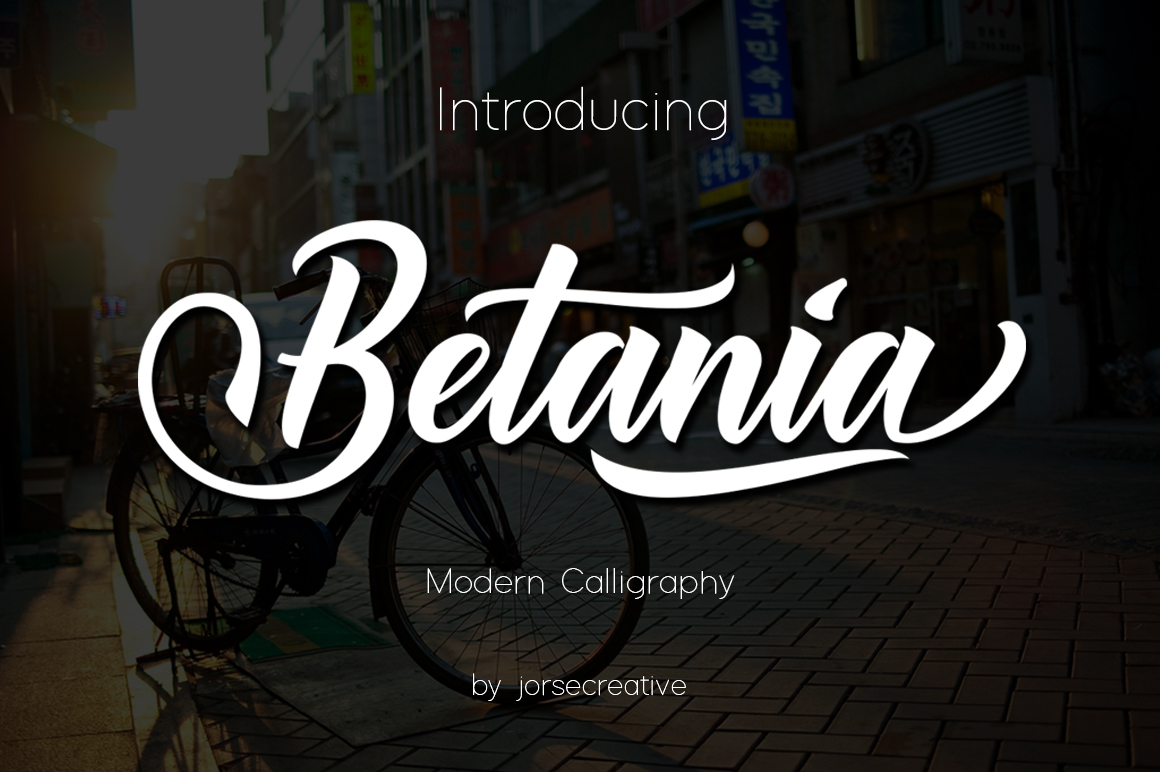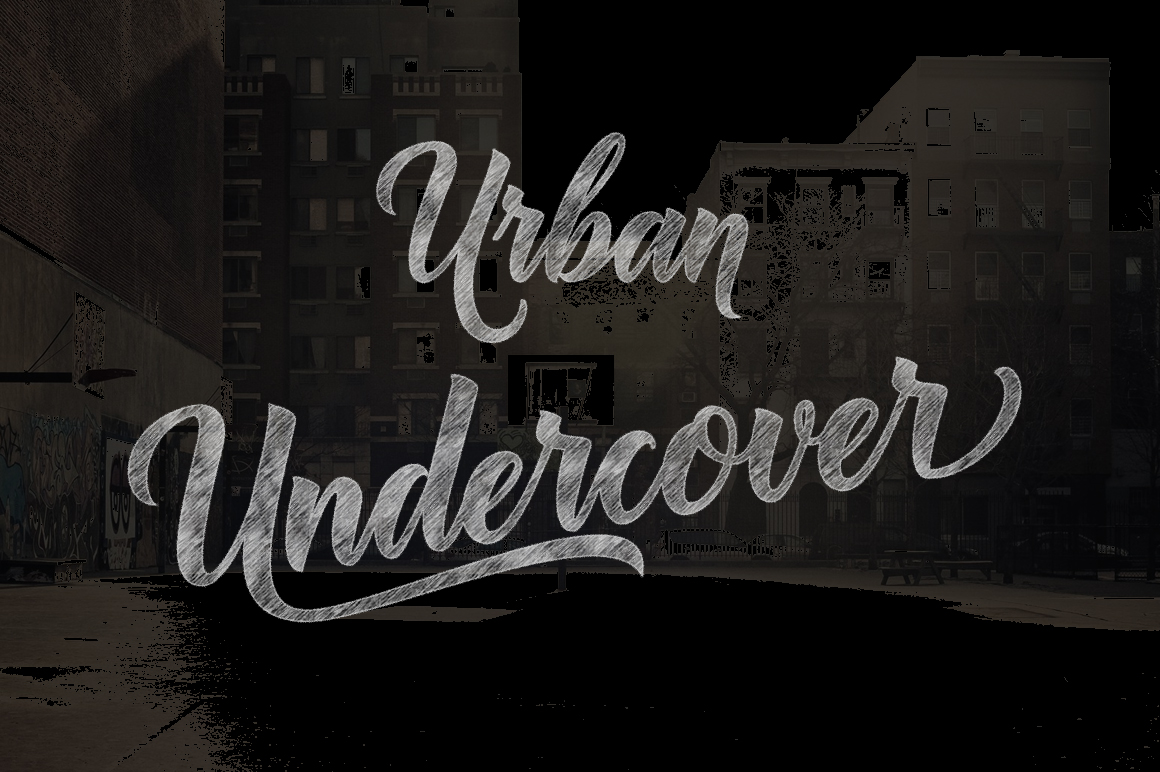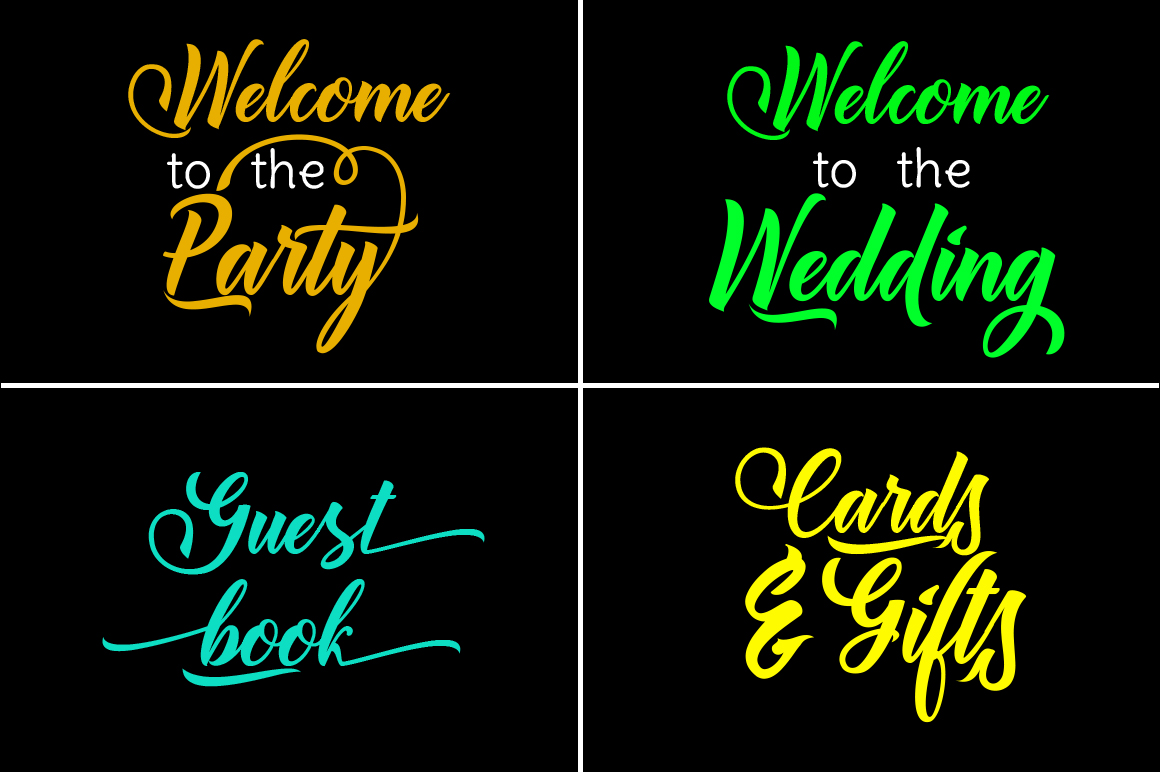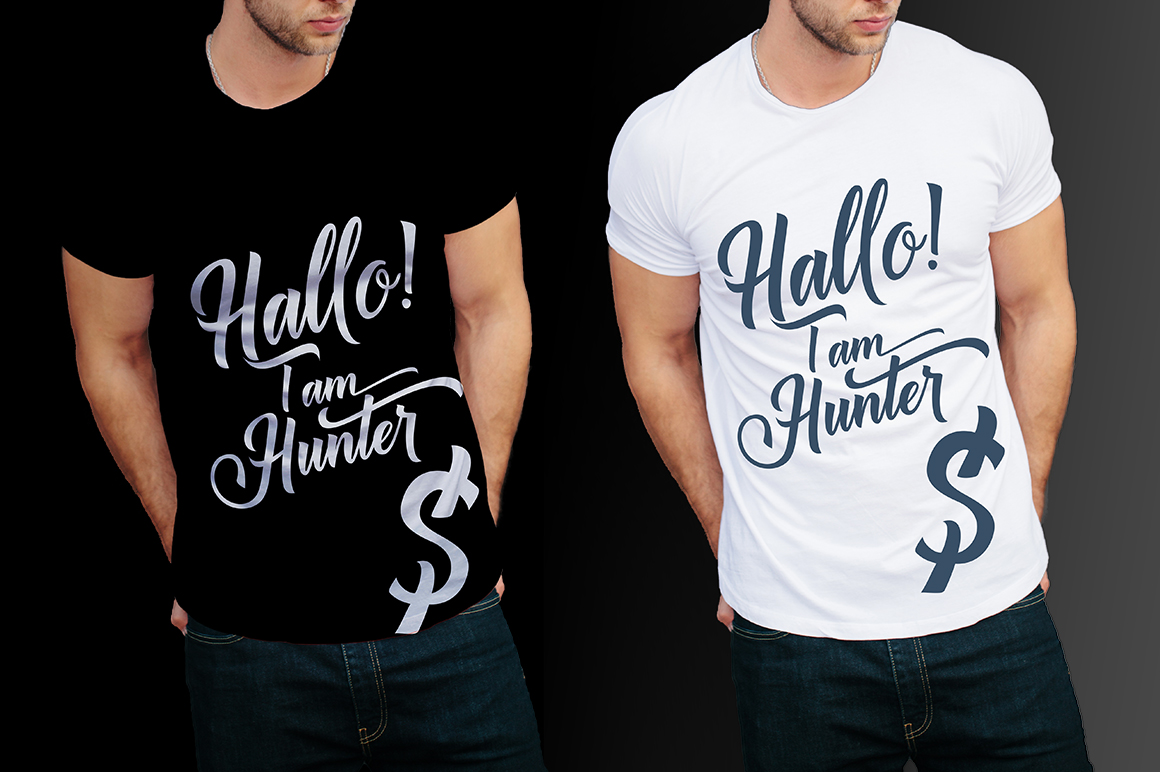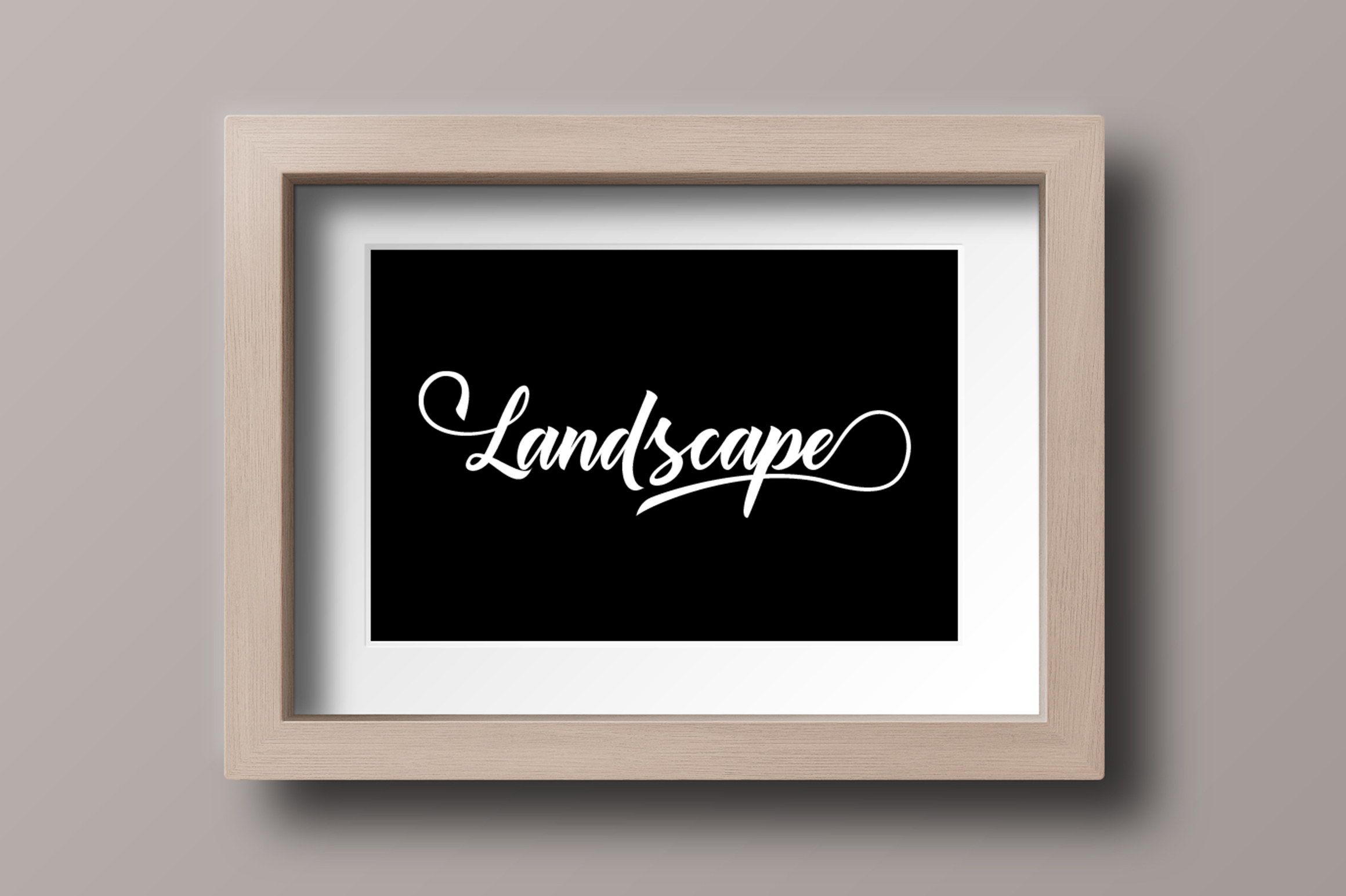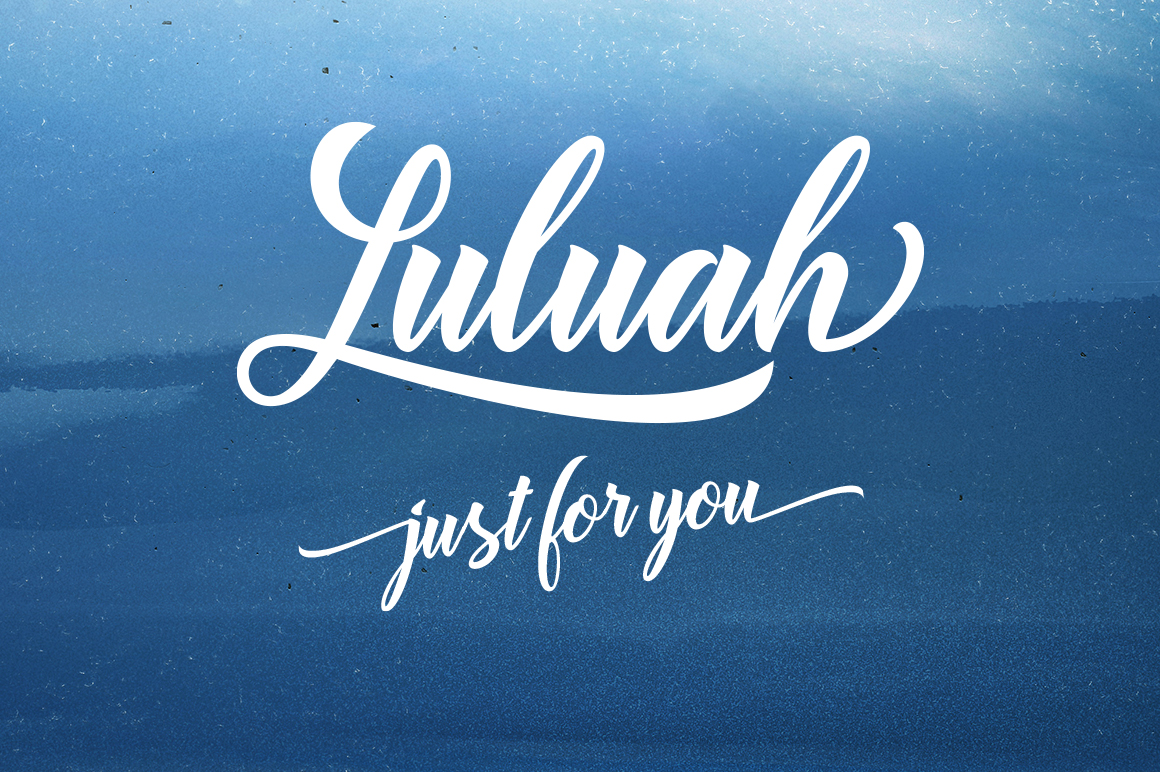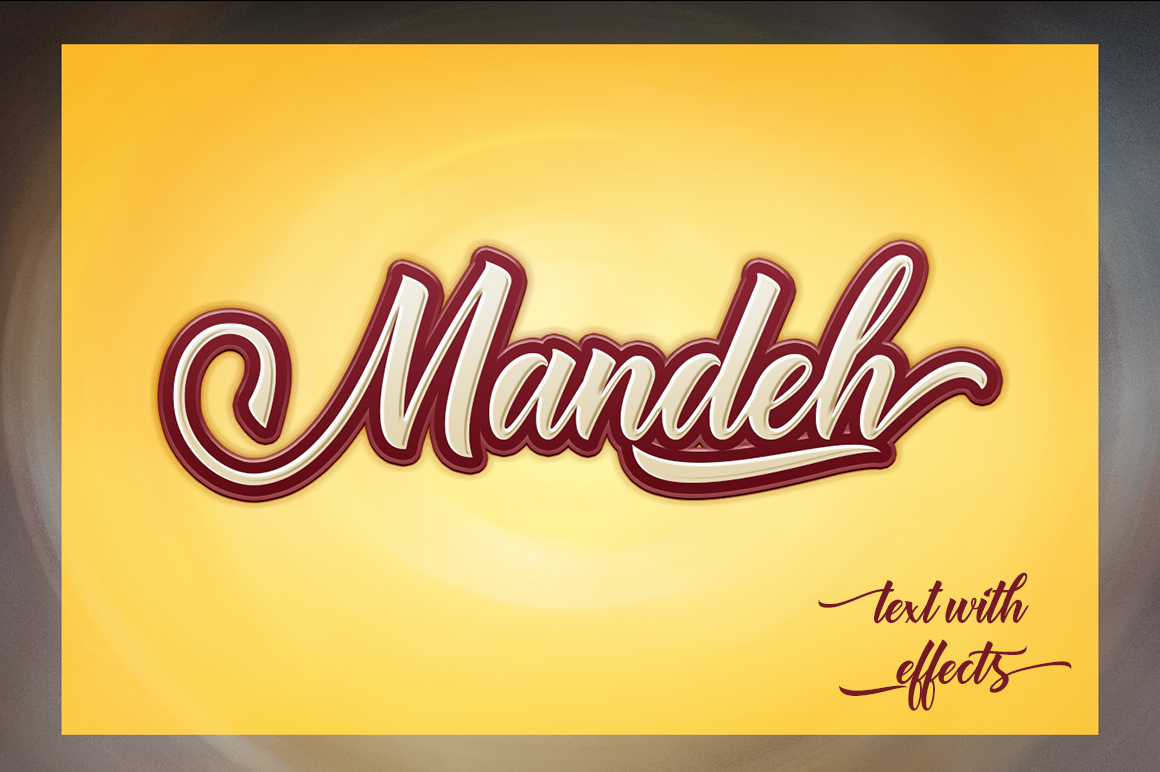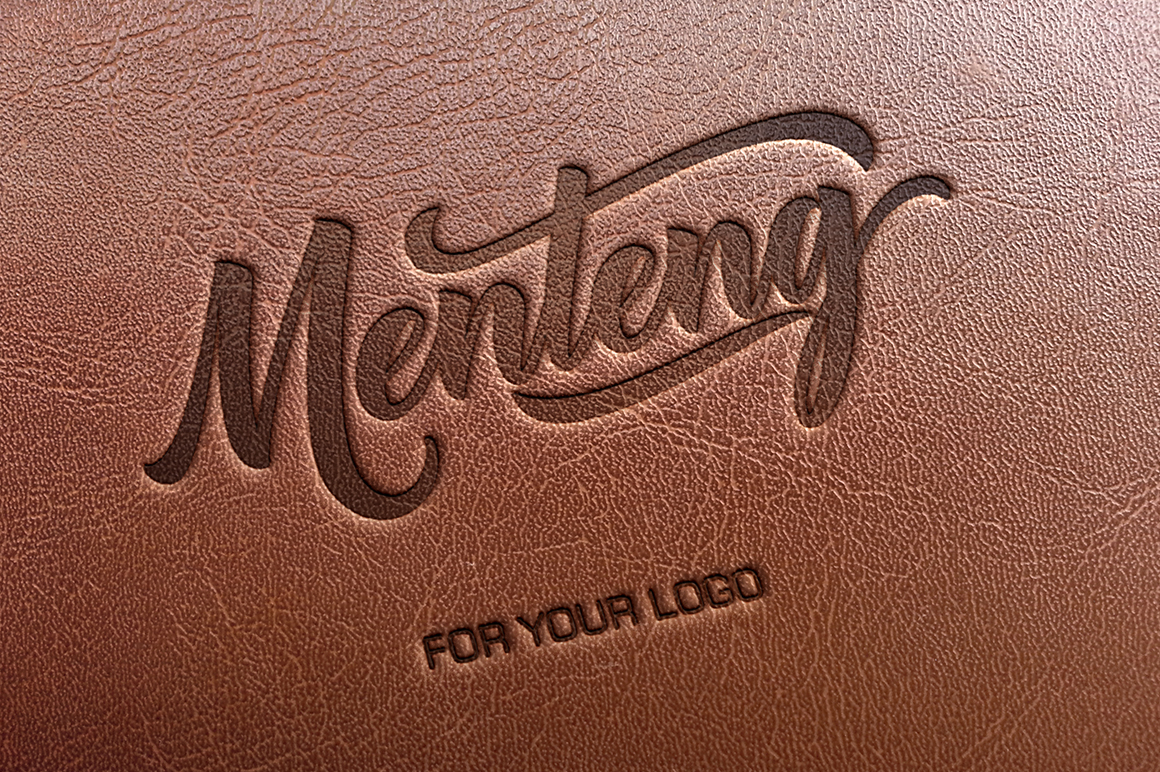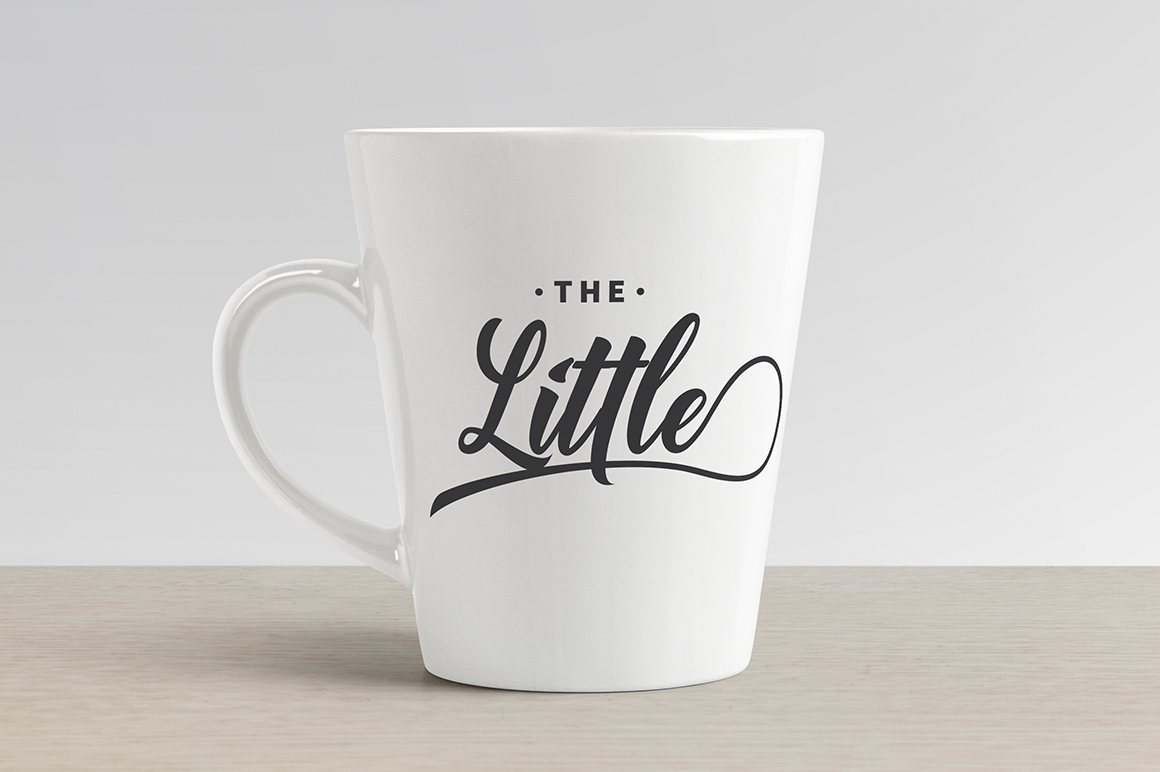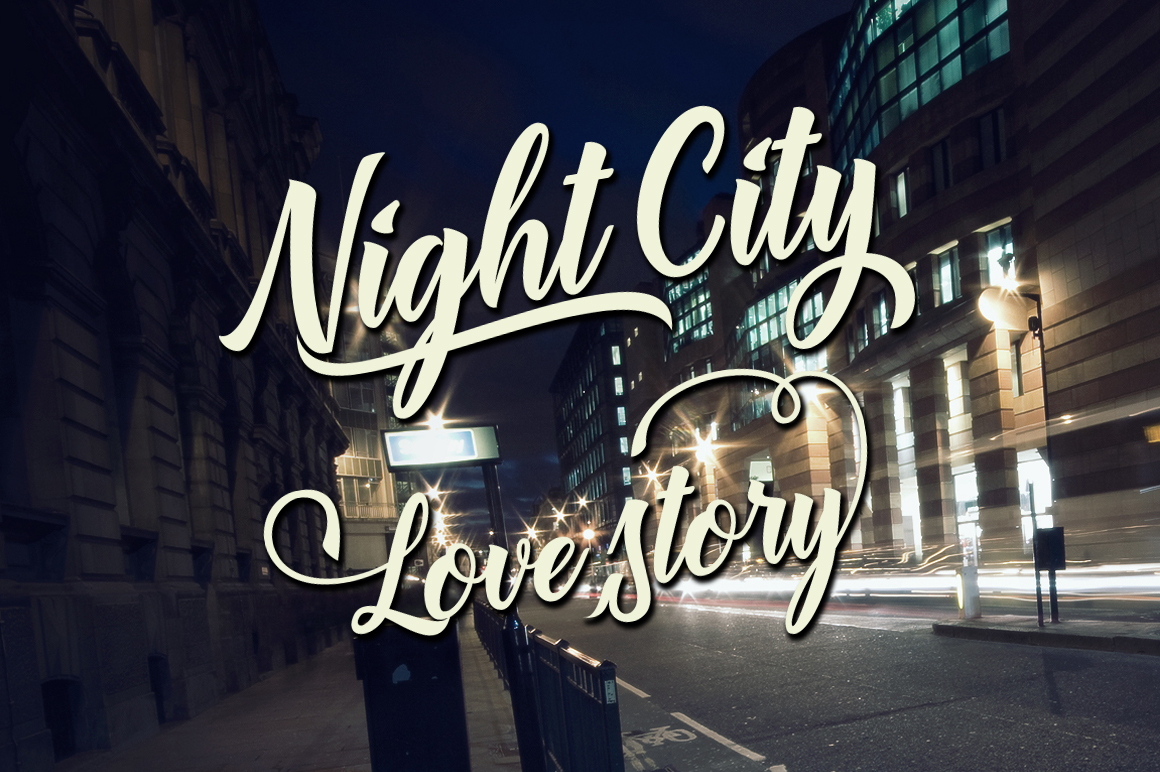
Betania Font
About Betania Font
Betania is a modern calligraphy font created by Jorsecreative.
It features 619 unique glyphs and is packed with alternate characters. Make sure to check the specimen file to view all the stunning handmade letters in this font.